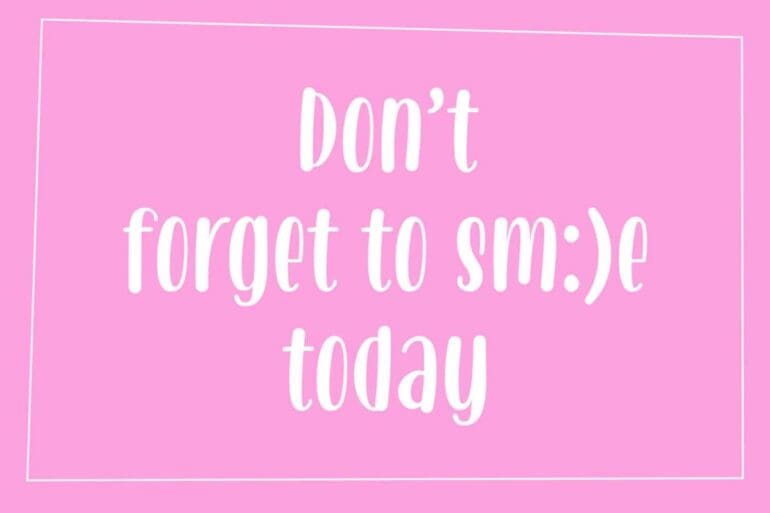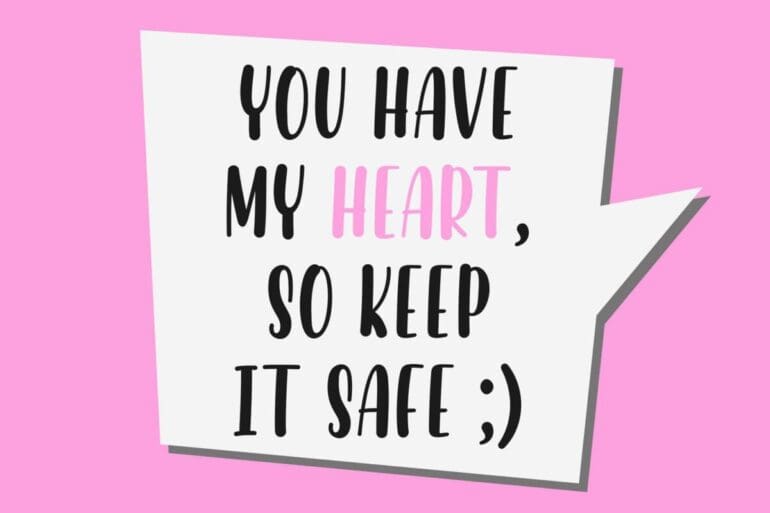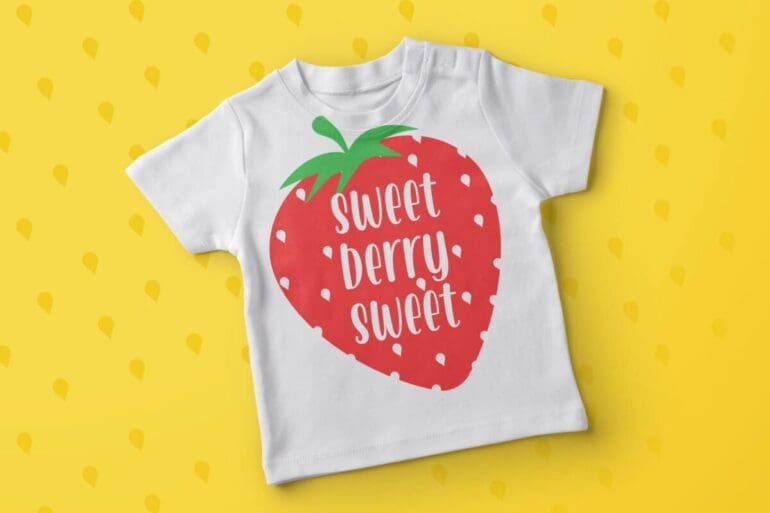
Penguin Blush Font
Penguin Blush is a handwritten font, smooth, cute and fun. This font is perfect for quotes, kids theme, headings, blogs, logos, invitations, watermark, social media posts, product packaging, product designs, label, special events and more!